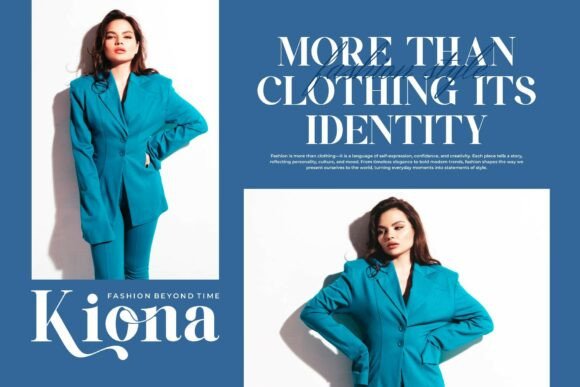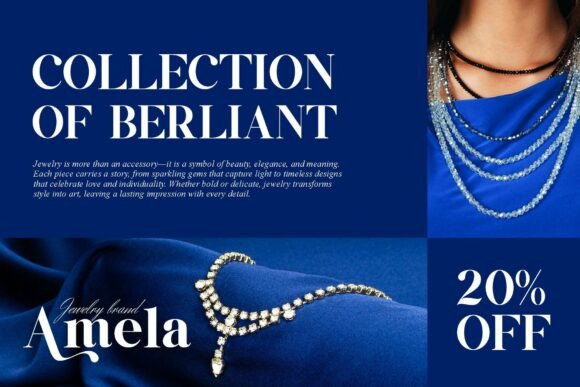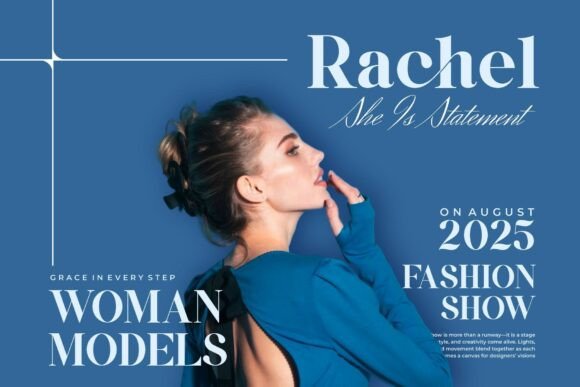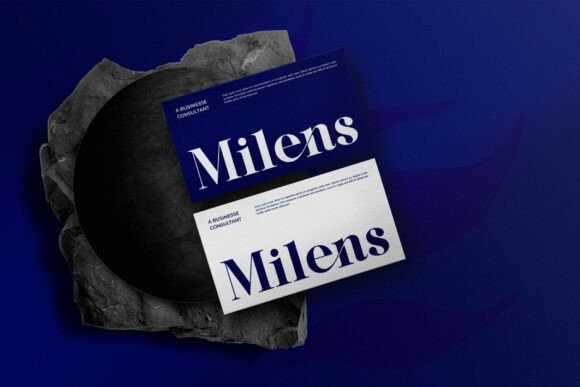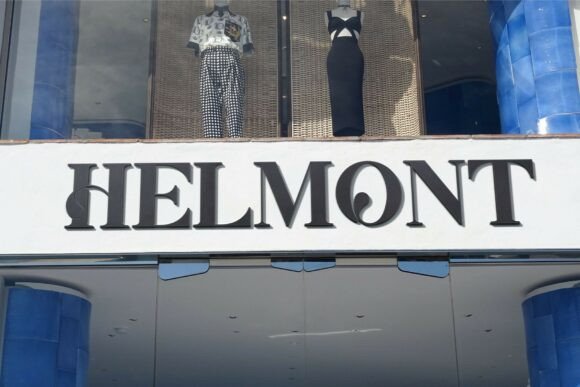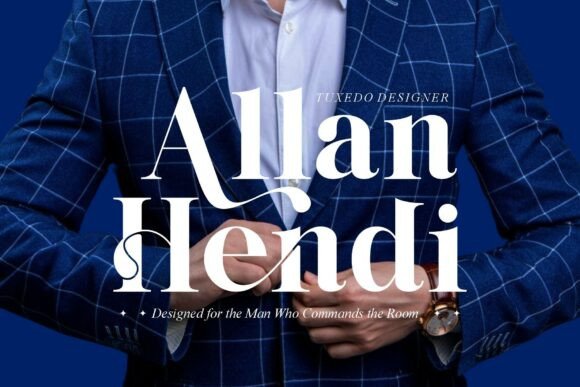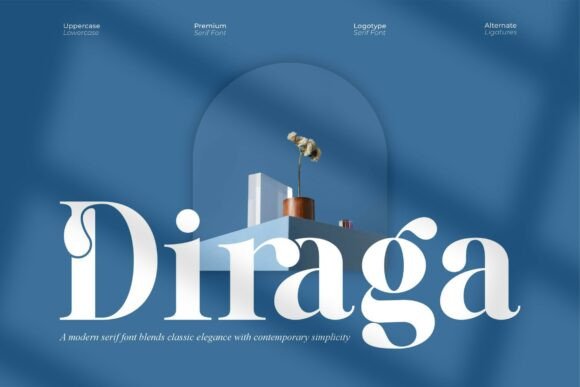
Introducing Diraga Font: The Epitome of Modern Serif Elegance
In the realm of typography, fonts play a pivotal role in conveying the essence of a brand, product, or message. Among the myriad of fonts available, Diraga stands out as a beacon of sophistication and modernity. This refined modern serif font has been crafted to blend the timeless elegance of classic serifs with the sleekness of contemporary design elements. Diraga is not just a font; it’s an experience that elevates any design project to new heights of luxury and refinement.
The Design Philosophy of Diraga
Diraga’s design philosophy revolves around creating a balance between classic elegance and modern flair. Its bold strokes exude confidence and strength, while its graceful curves add a touch of softness and approachability. The stylish ligatures woven into Diraga’s design provide a unique and distinctive feel, setting it apart from more traditional serif fonts. This blend of characteristics makes Diraga a versatile tool for designers looking to imbue their projects with a sense of sophistication and luxury.
Applications of Diraga Font
The versatility of Diraga makes it suitable for a wide range of applications. Whether you’re working on a branding project, crafting an editorial piece, designing packaging, creating invitations, or developing a luxury logo, Diraga is up to the task. Its high-end aesthetic ensures that any project it is used for automatically gains a level of prestige and elegance. Moreover, Diraga’s adaptability means it can be used effectively in both digital and print mediums, making it a valuable asset for designers who work across various platforms.
Branding and Logos
In the world of branding, first impressions are crucial. Diraga helps brands make a statement with its bold yet refined presence. Its unique blend of classic and modern elements ensures that logos and brand identities stand out in a crowded marketplace. For luxury brands, high-end products, or services aiming to convey a sense of premium quality, Diraga is an excellent choice.
Editorials and Publishing
For editorial projects, such as magazines, newspapers, and books, Diraga offers a touch of sophistication that can elevate the reading experience. Its clear readability and elegant appearance make it perfect for body text, while its bold variants can be used to create striking headlines.
Packaging and Invitations
Packaging and invitations are areas where Diraga truly shines. For packaging, it can help a product stand out on crowded shelves, while for invitations, it adds a touch of luxury and anticipation. Whether it’s a product launch, a wedding invitation, or a corporate event, Diraga ensures that the message is conveyed with style and elegance.
Why Choose Diraga?
Choosing Diraga for your design projects comes with several advantages. Its timeless yet fresh aesthetic ensures that your designs remain relevant for years to come. Additionally, its versatility across different mediums and applications makes it a practical choice for designers who work on a variety of projects. The font’s ability to convey luxury and elegance instantly elevates the perceived value of a brand or product.
Diraga font is a powerful tool for designers and crafters looking to add a touch of sophistication and luxury to their projects. Its unique blend of classic elegance and modern details makes it a standout in the world of typography. Whether you’re working on branding, editorials, packaging, invitations, or luxury logos, Diraga is sure to exceed your expectations. With its versatility, elegance, and modern flair, Diraga is not just a font but a design statement that can elevate any project to new heights of style and refinement.
Embrace the world of high-end design with Diraga, and discover how this refined modern serif font can transform your creative projects into timeless pieces of art.